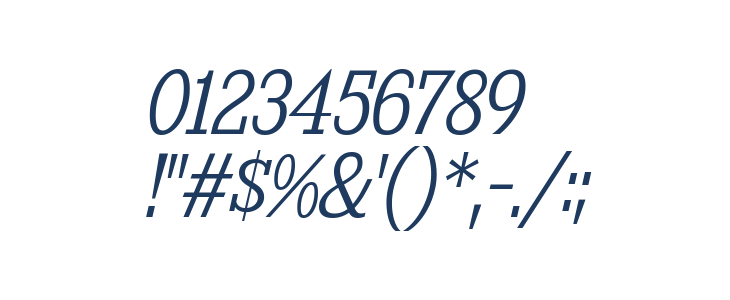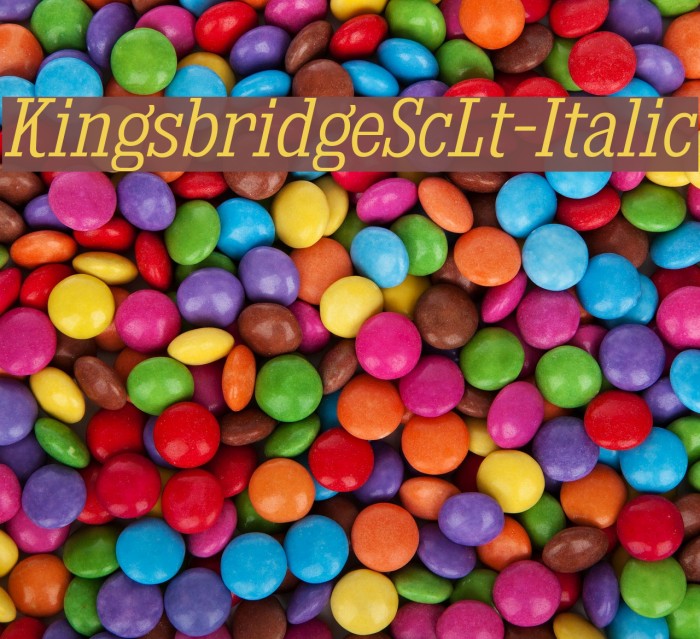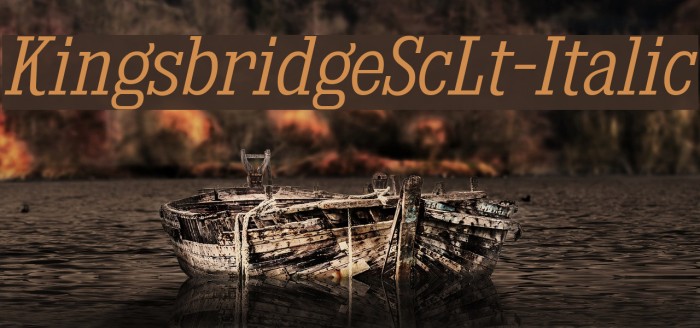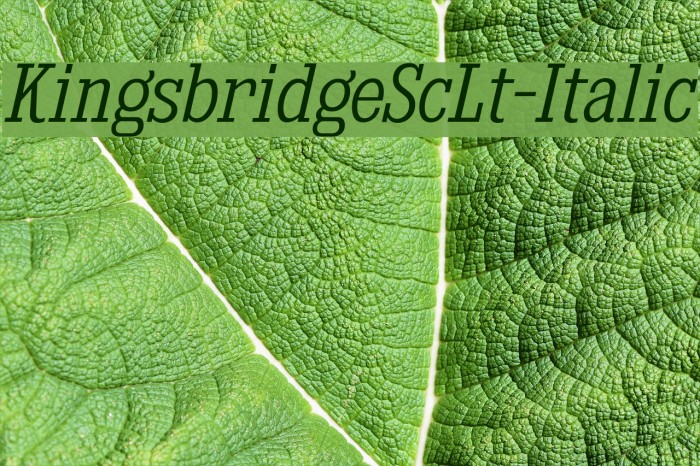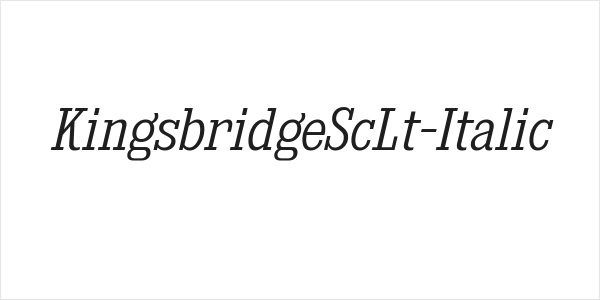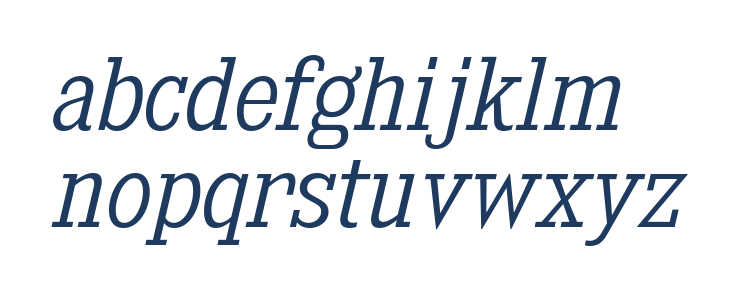
KingsbridgeScLt-Italic Font
KingsbridgeScLt-Italic Description
This font features a classic serif style with a distinct italic slant, giving it an elegant and sophisticated appearance. The characters are well-defined with moderate contrast between thick and thin strokes, enhancing readability while maintaining a refined aesthetic. The uppercase letters exhibit a traditional formality, while the lowercase letters are slightly more relaxed, yet still maintain a cohesive look. The numerals are clear and consistent, ensuring they stand out in any context. Special characters are included, providing versatility for various design needs. Overall, this font exudes a timeless charm, making it suitable for projects that require a touch of elegance.
| Proposed Projects | Ideal for formal invitations, editorial design, branding projects, and elegant website headers. |